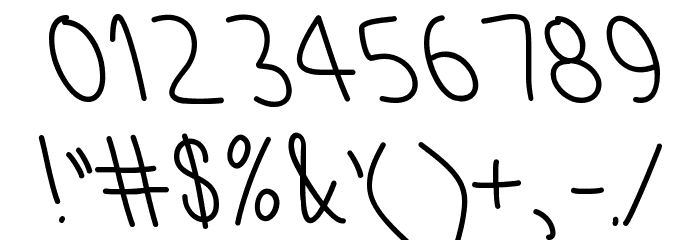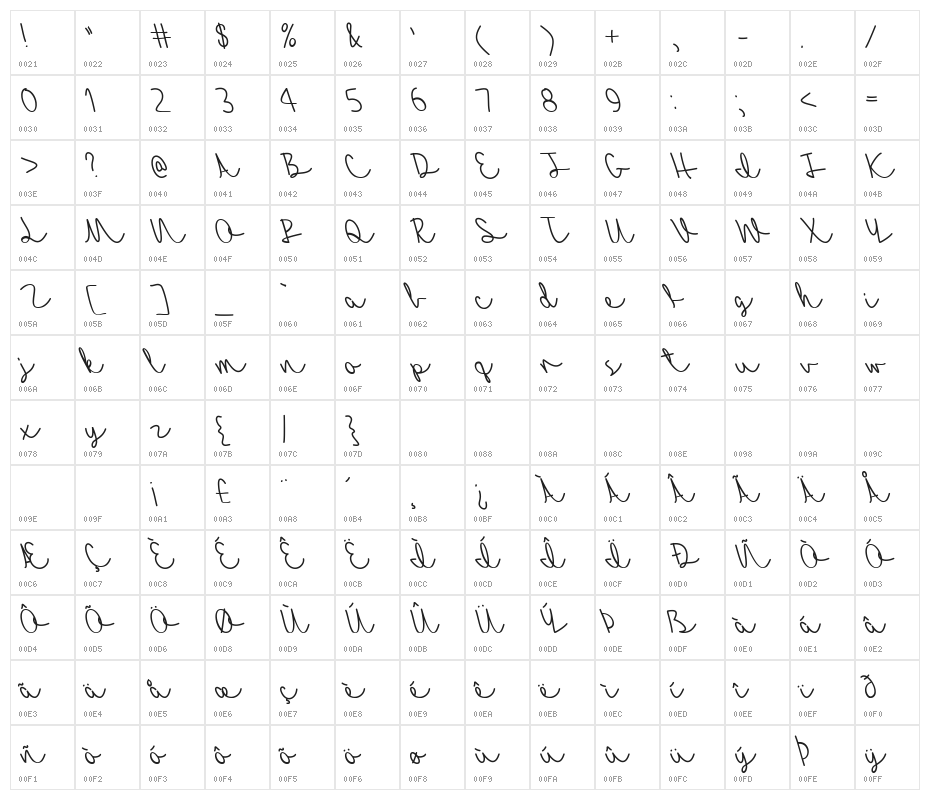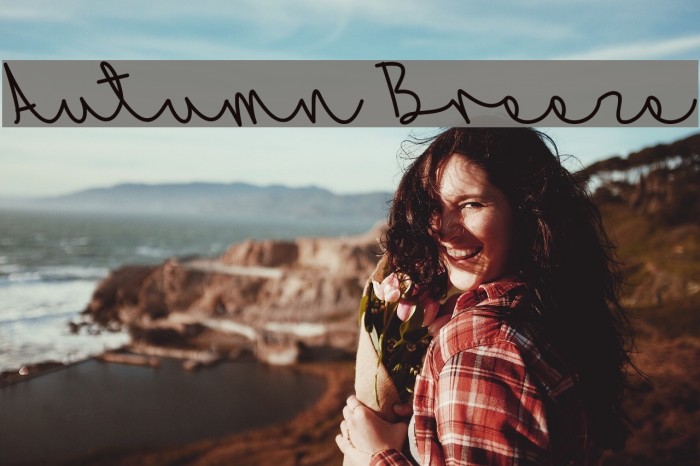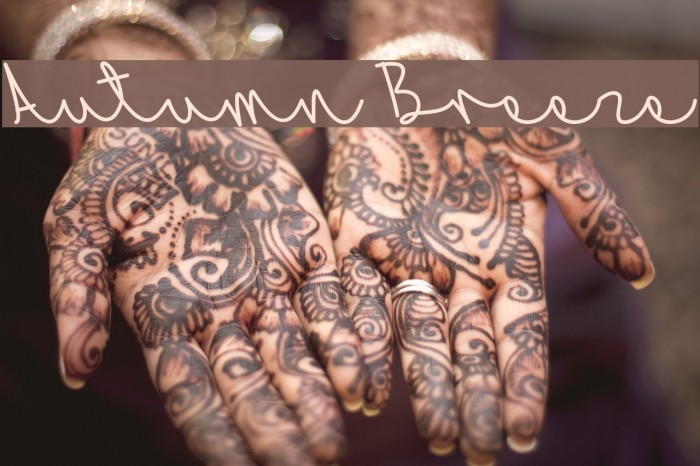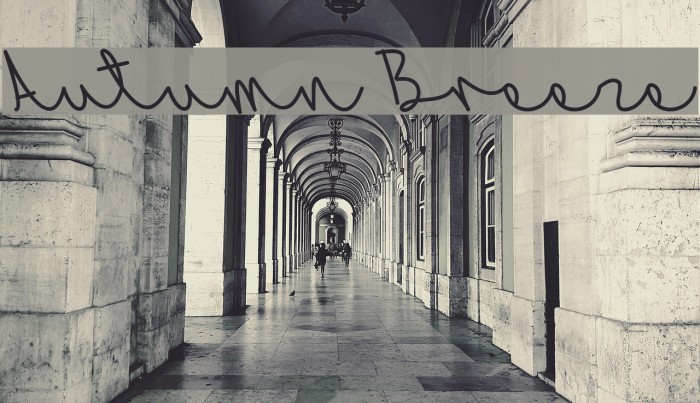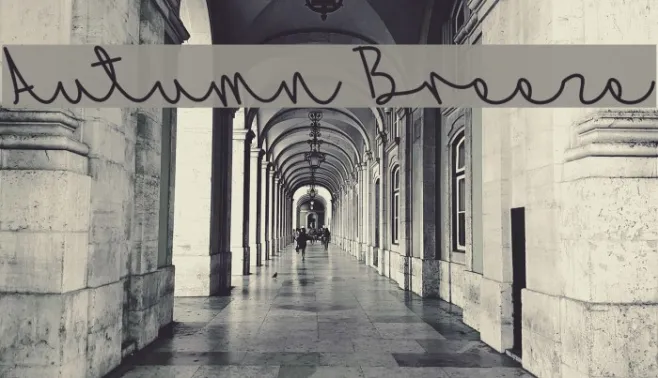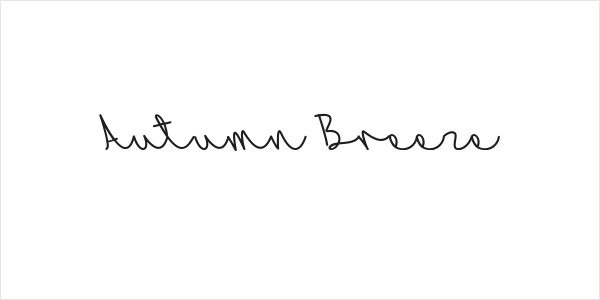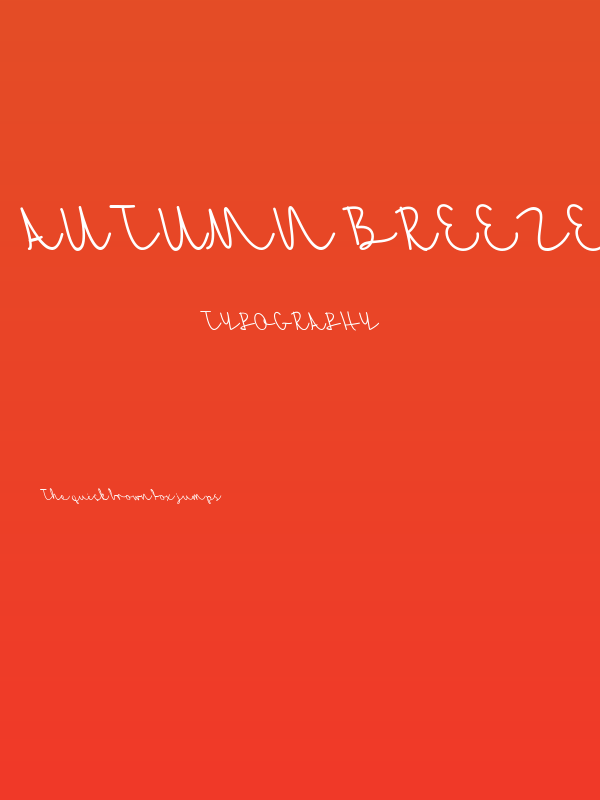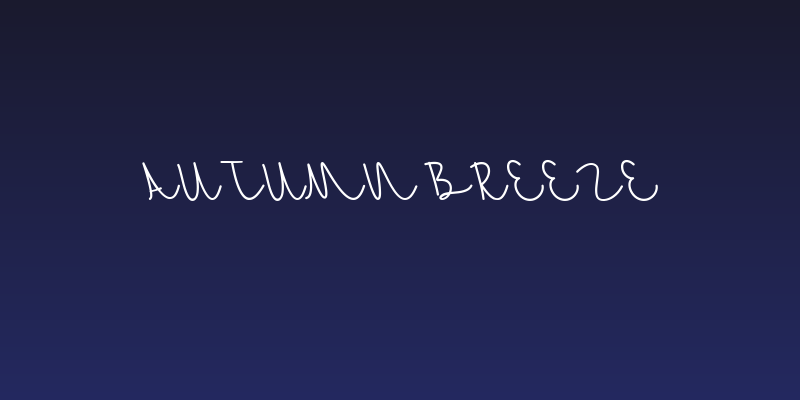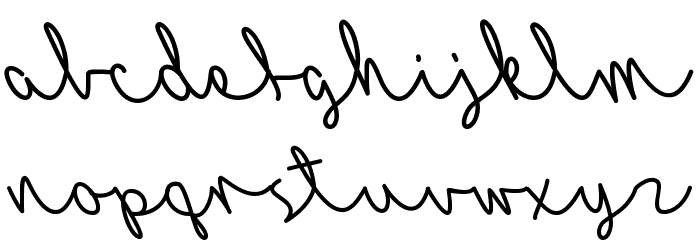
Autumn Breeze Font
Autumn Breeze Description
This font features a flowing, cursive style that mimics natural handwriting with a playful and casual feel. The letters are connected, creating a seamless and fluid appearance. The strokes are consistent in width, giving it a uniform look while maintaining a sense of movement and spontaneity. The uppercase letters are slightly larger and more pronounced, while the lowercase letters maintain a consistent baseline, enhancing readability. The numerals and special characters follow the same cursive style, ensuring a cohesive design throughout. This font exudes a friendly and approachable vibe, making it suitable for various creative applications.